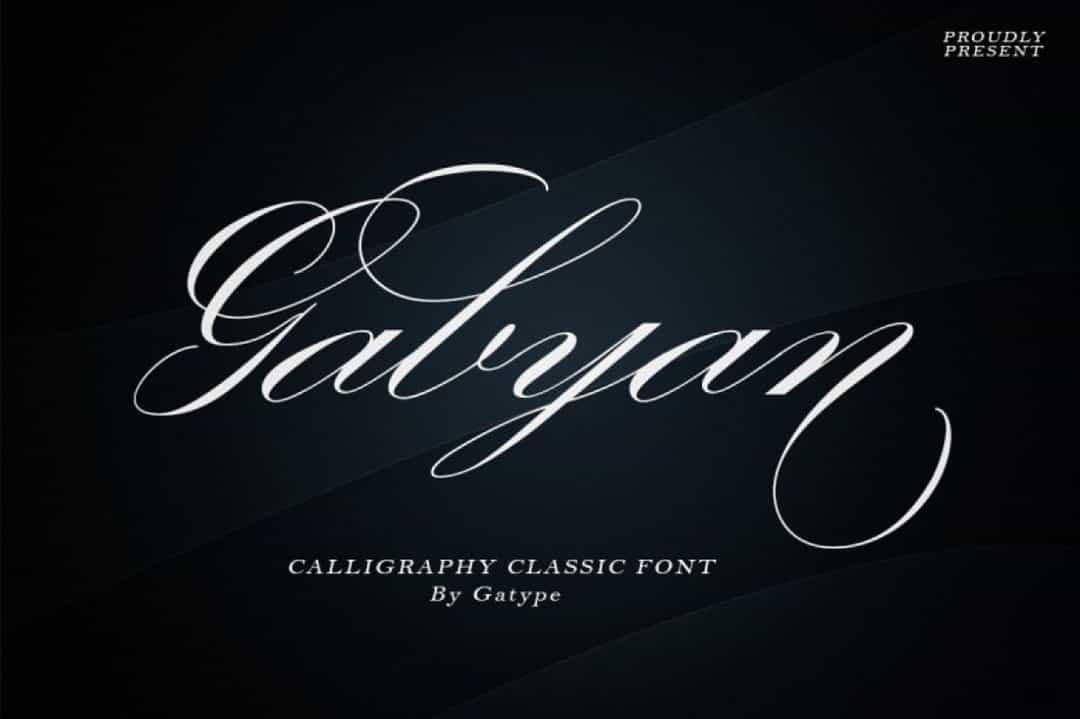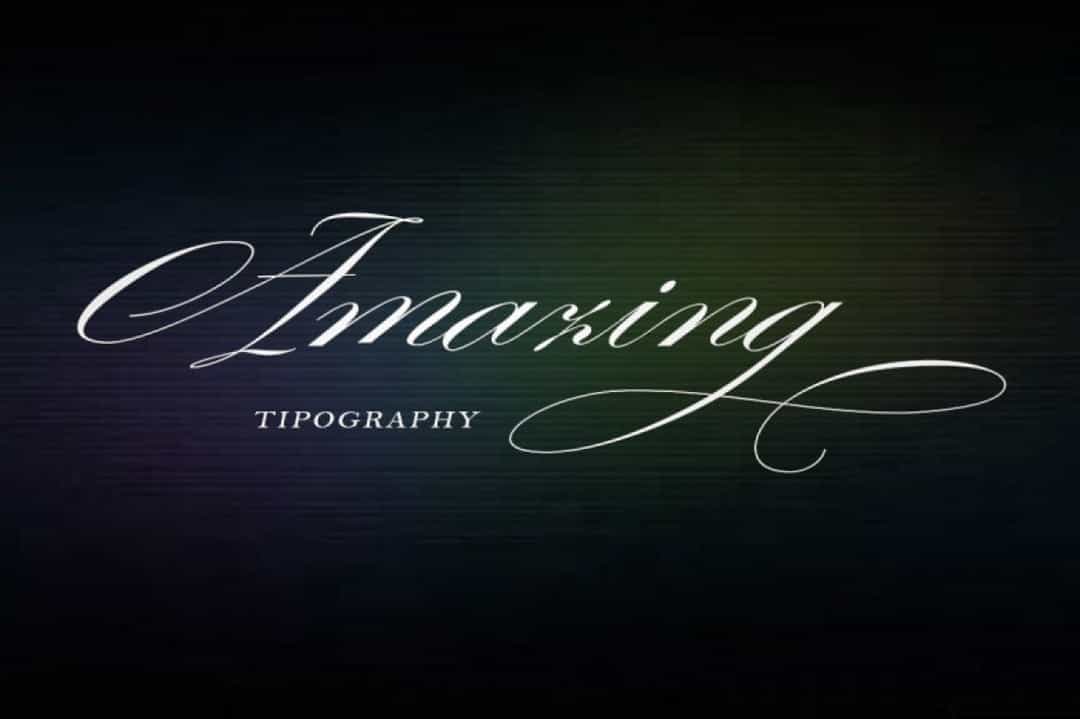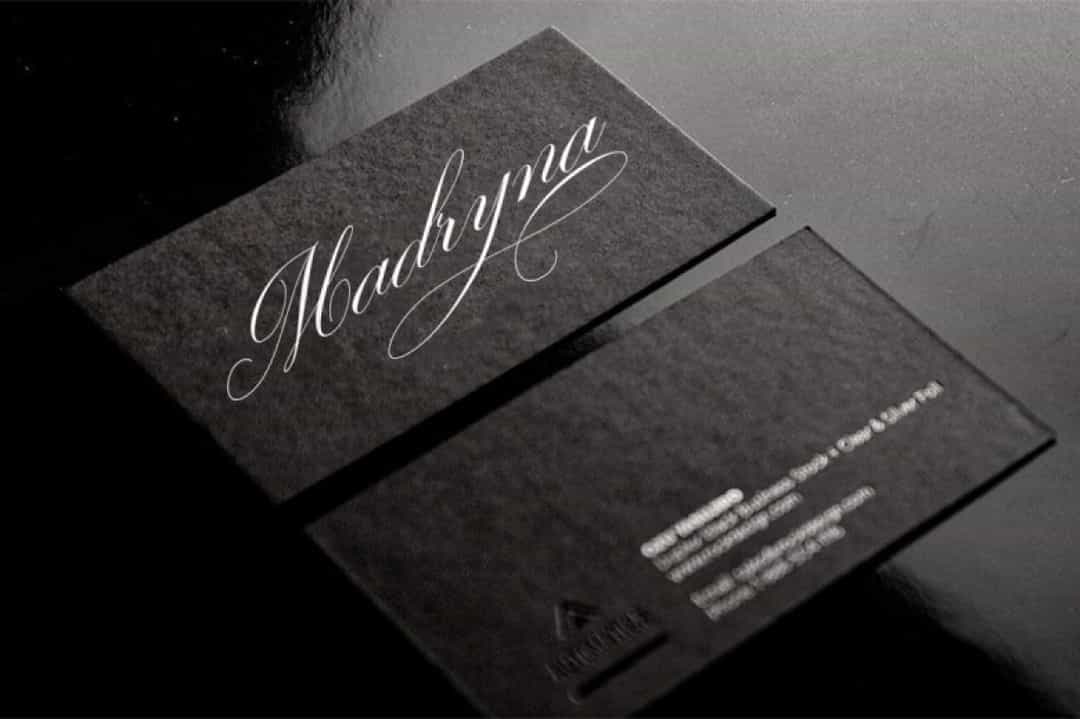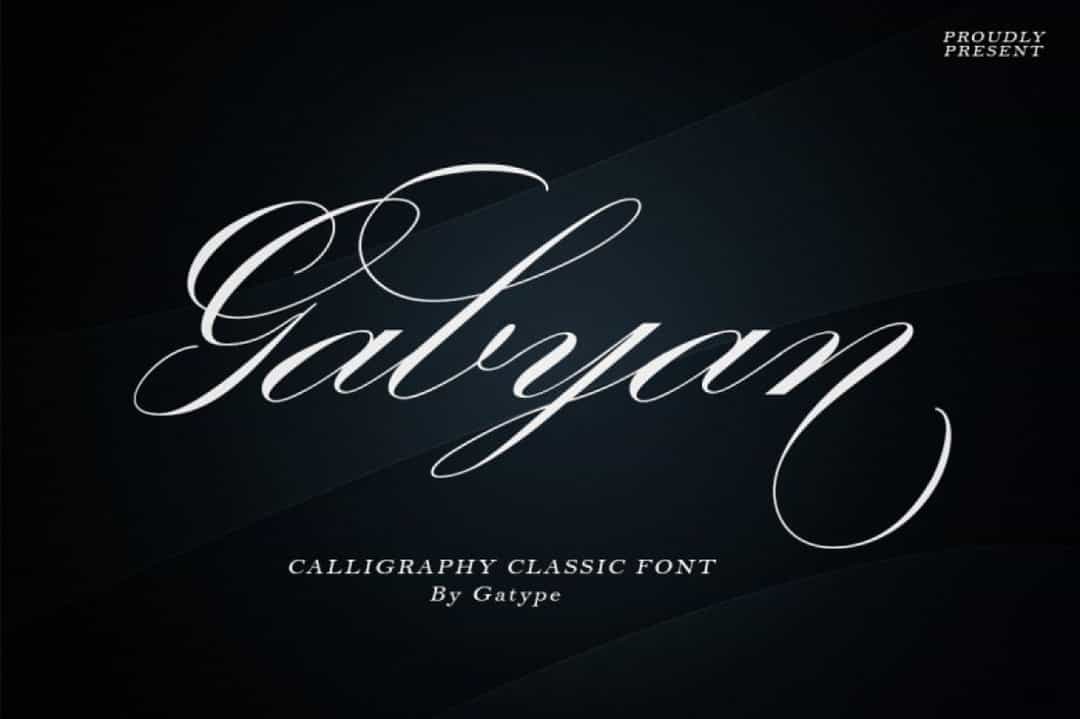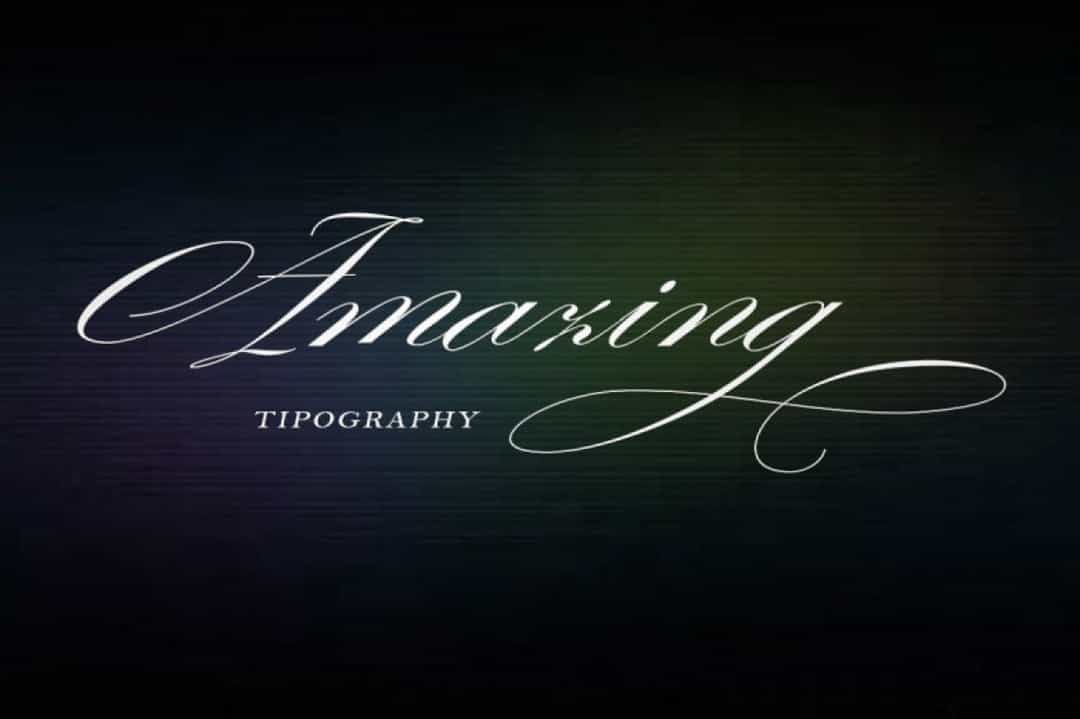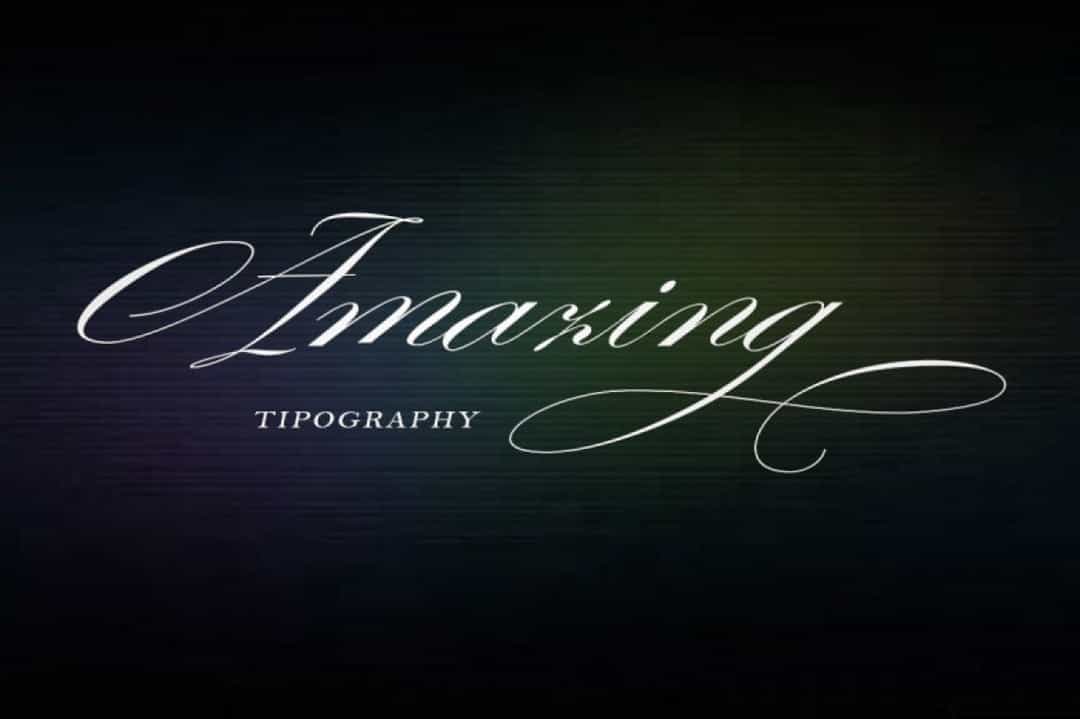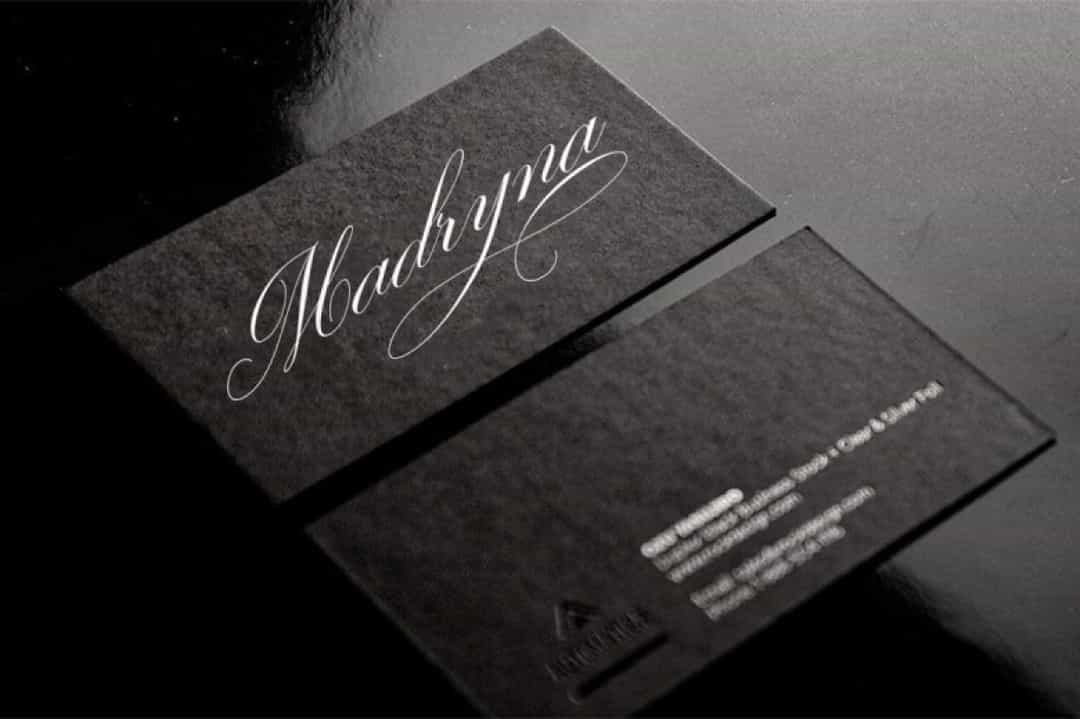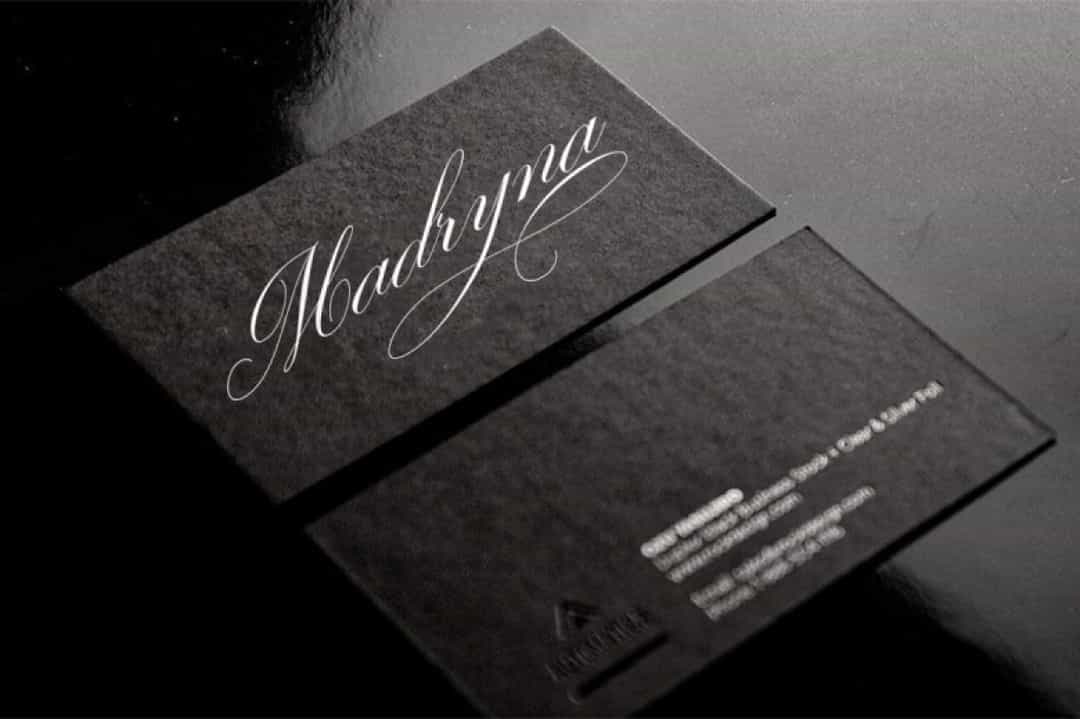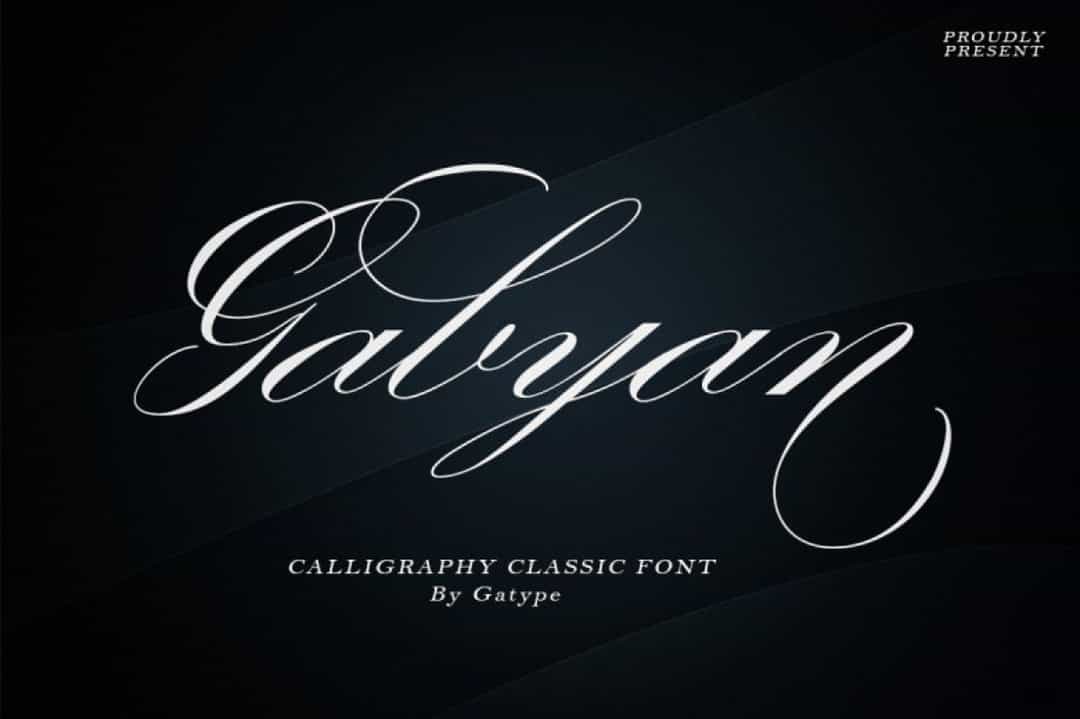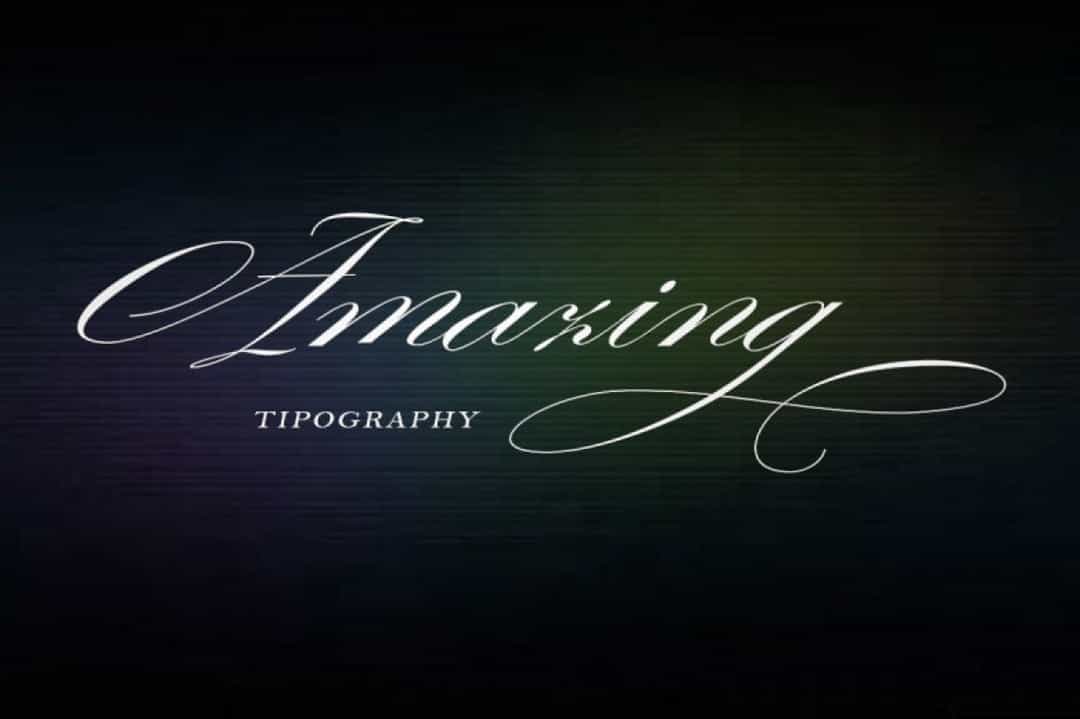
Gabyan is an elegant Calligraphy Script typeface with easy readability and graceful swashes that makes this font suitable for many different purposes; such as logos packaging products wedding invitations branding headlines signs labels signatures book posters covers as well as quotes.